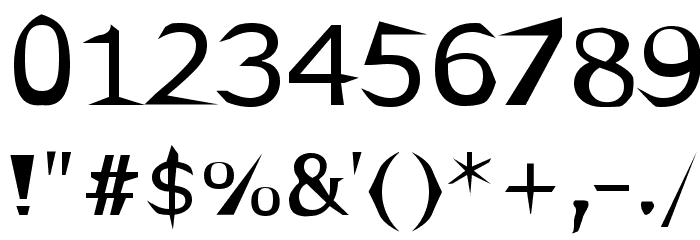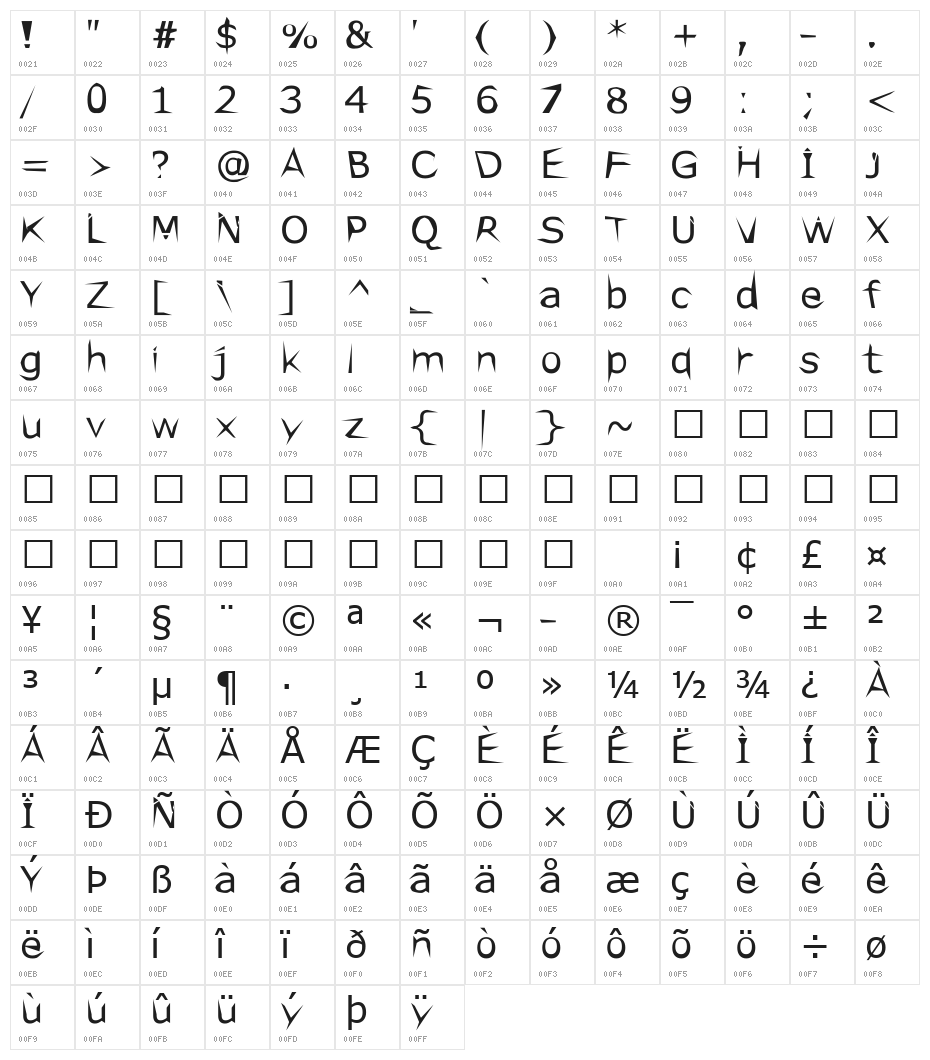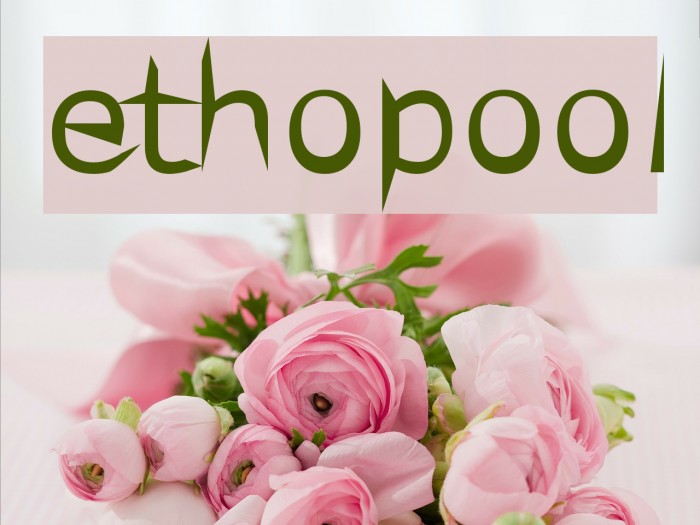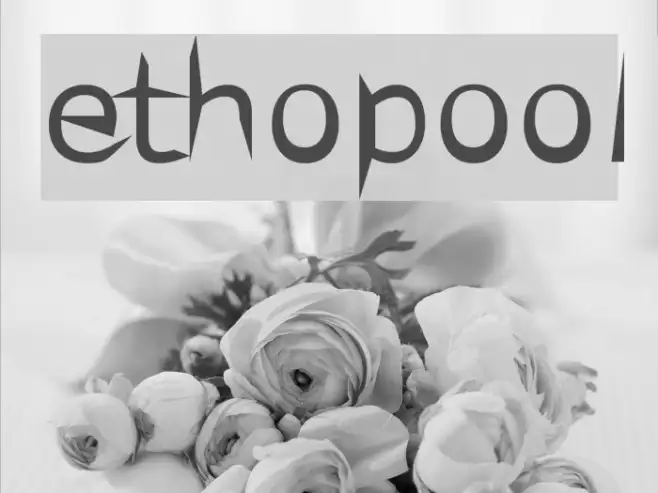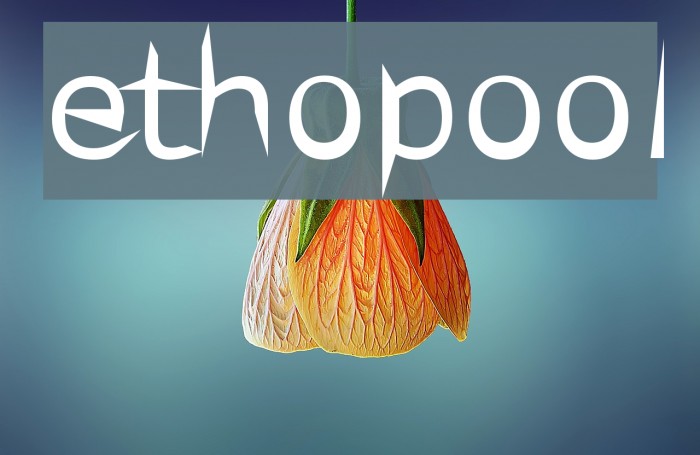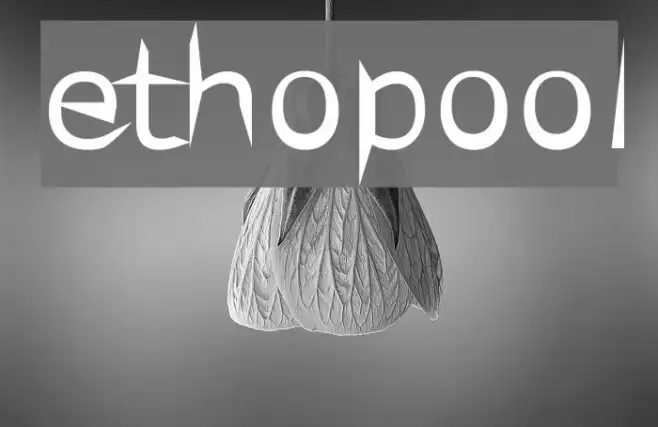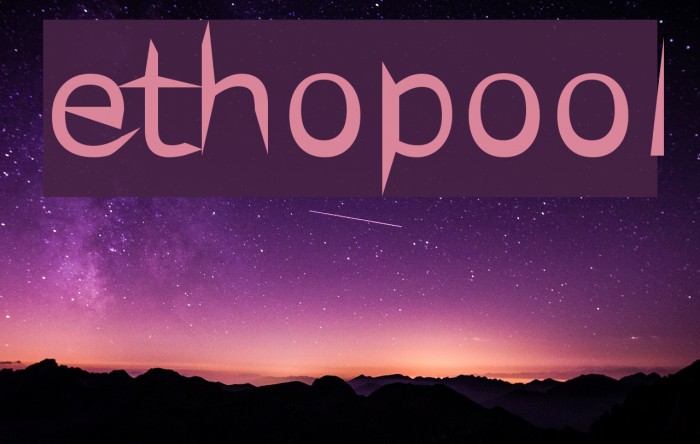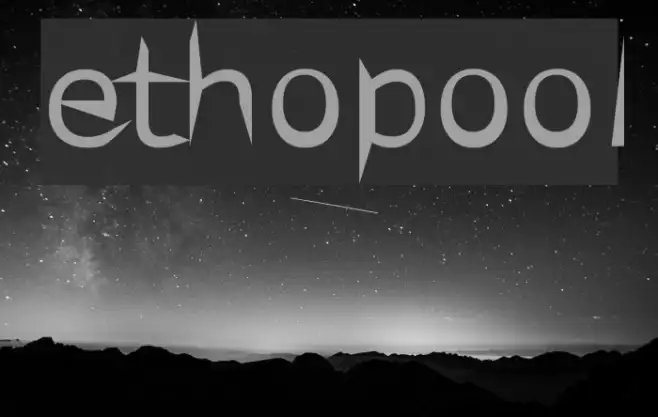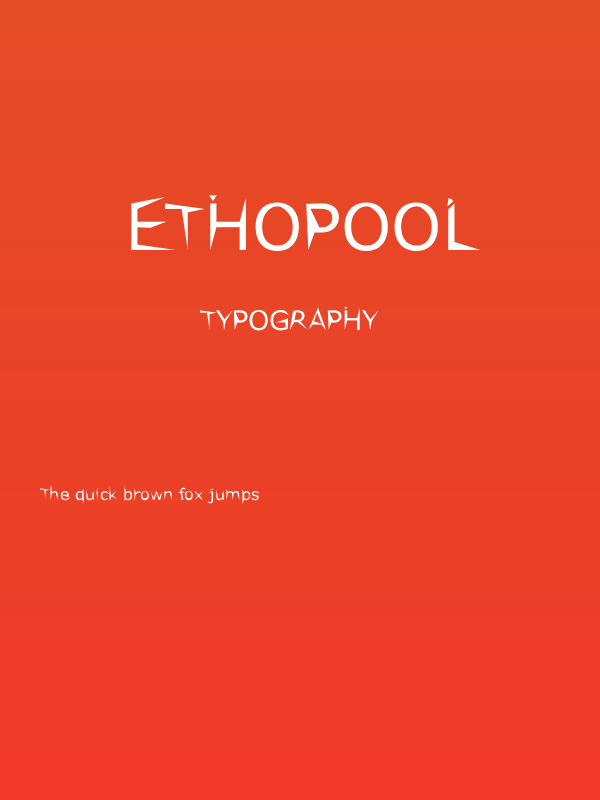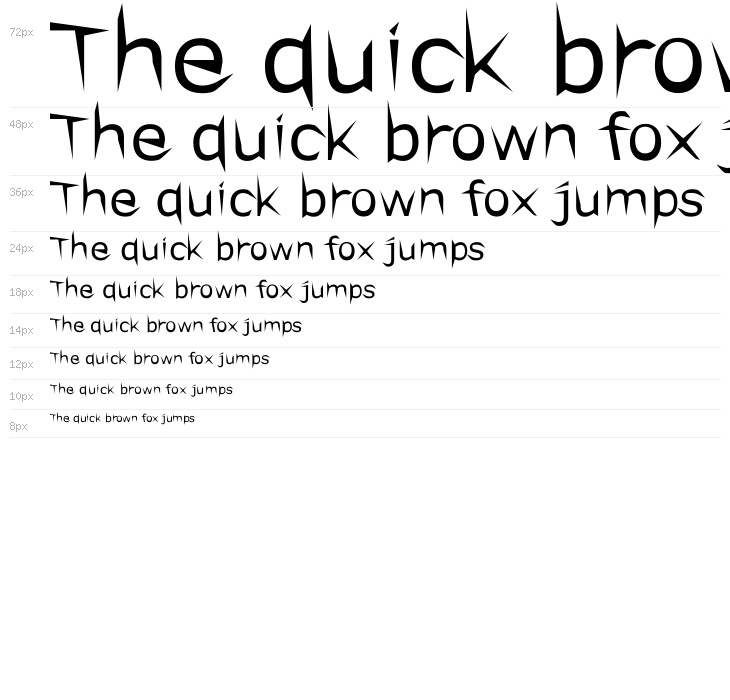
ethopool Font
ethopool Description
This font features a dynamic and edgy design with sharp, angular lines and a distinct geometric style. The uppercase letters are bold and striking, with unique cuts and angles that give them a modern, almost futuristic appearance. The lowercase letters maintain this angular theme, providing a cohesive look throughout the typeface. Numbers and special characters are crafted with the same attention to detail, ensuring consistency across all elements. The overall aesthetic is bold and attention-grabbing, making it ideal for projects that require a strong visual impact.